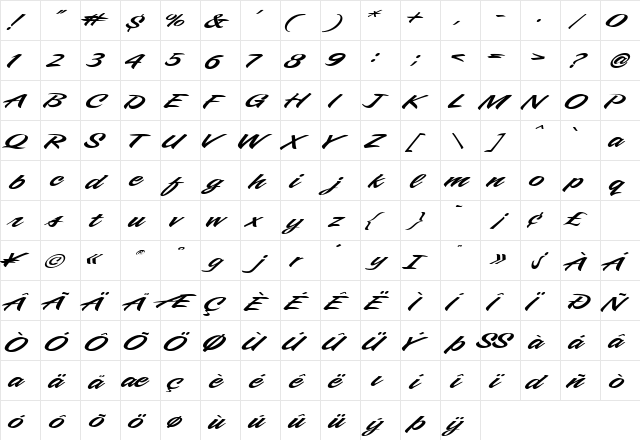
LHF Samster Script Regular
Design Context for LHF Samster Script Typeface
LHF Samster Script flows with the natural rhythm of handwritten lettering, making it ideal for designs that call for warmth and personal expression.
Font Pairing: Combine LHF Samster Script with a simple geometric sans for maximum contrast — the tension between flowing curves and clean structure is a classic typographic pairing.
Pro Tip: Use LHF Samster Script for short runs of text — names, titles, or taglines. Extended body copy in script faces tires the eye quickly.